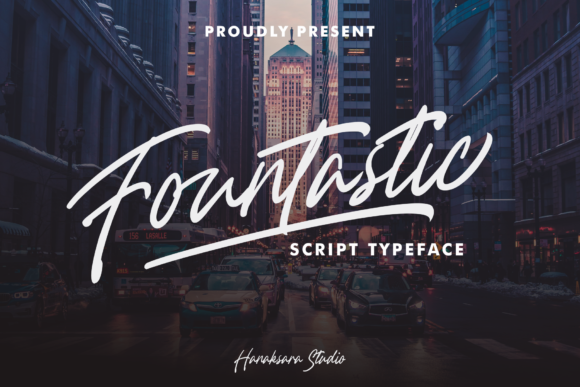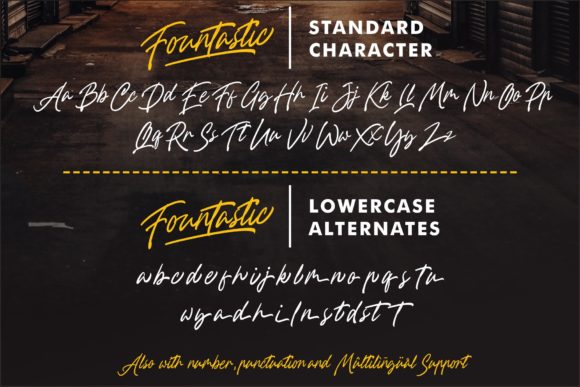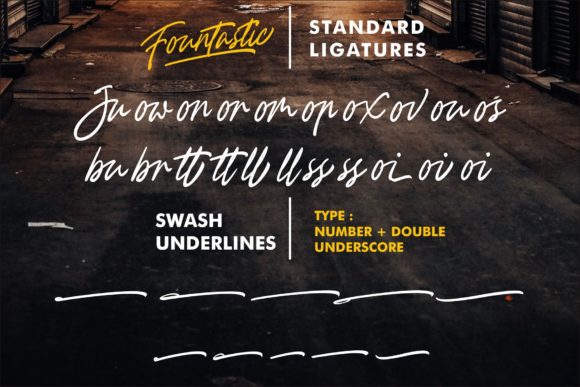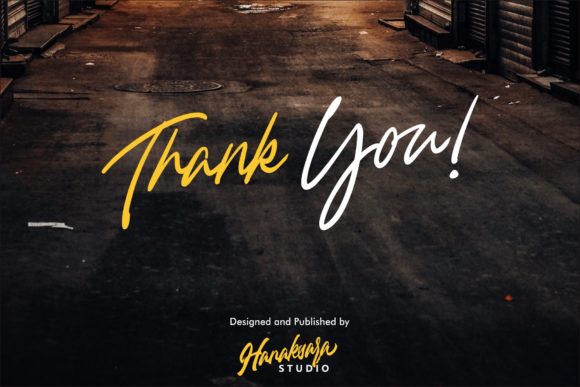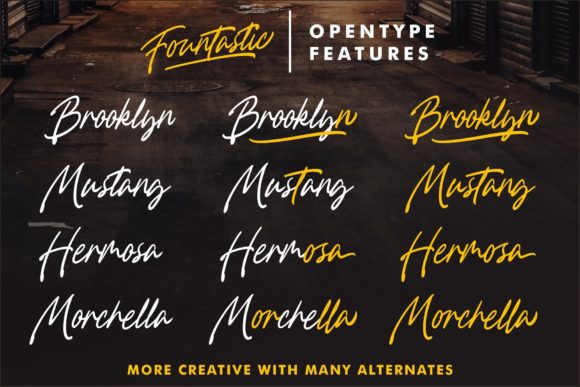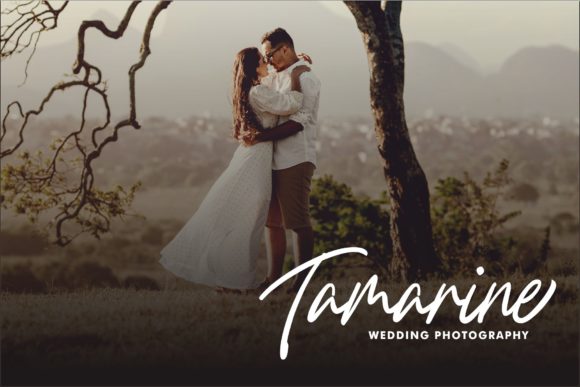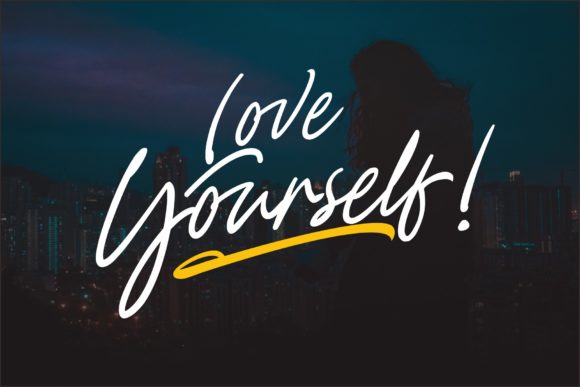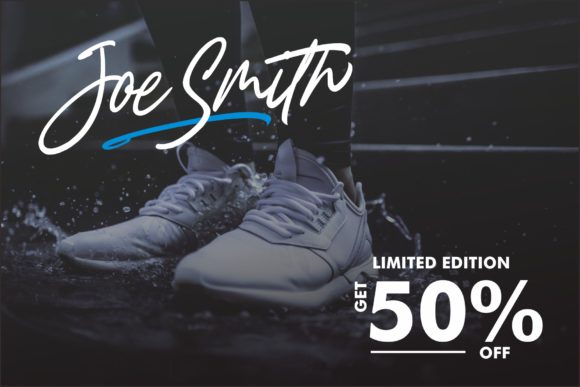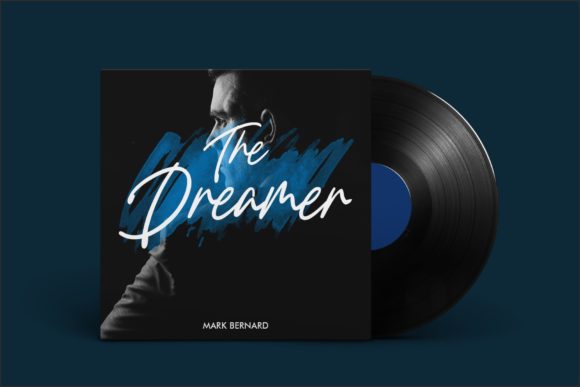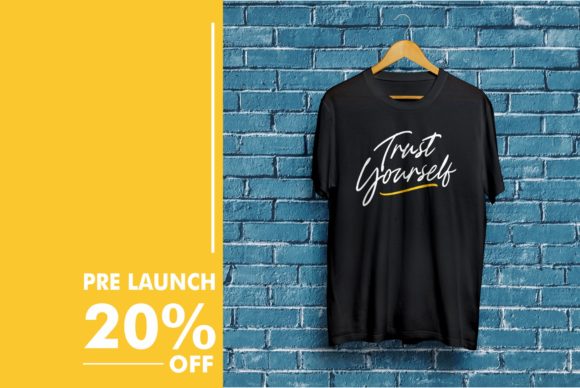
Fountastic Font
About Fountastic Font
Fountastic is inspired by classic typography and brings its own unique style to any design project. This great handwritten font is best suited for headlines of all sizes, as well as for blocks of text that have both maximum and minimum variations. Whether it’s for web, print, moving images or anything else – Fountastic will look spectacular.